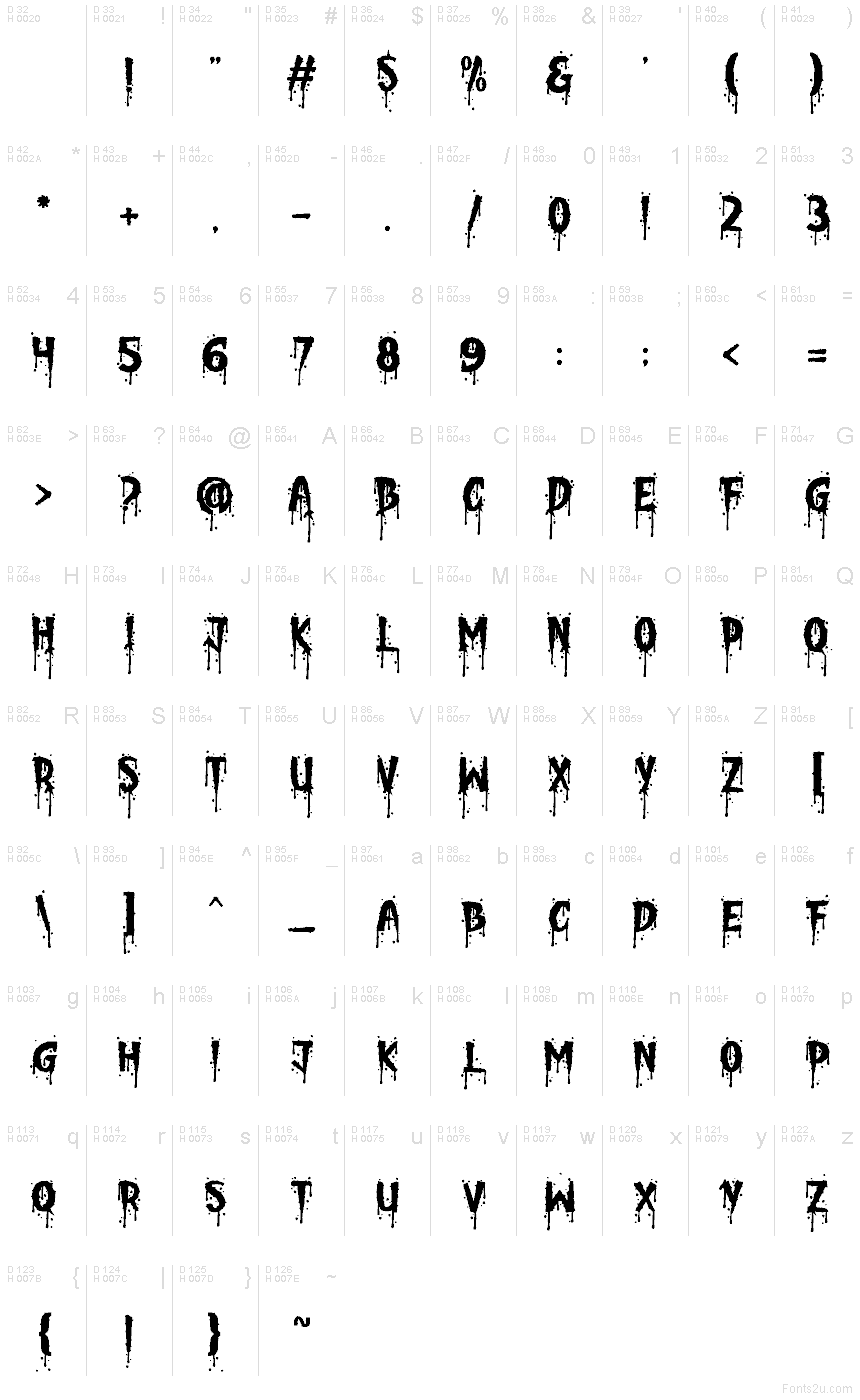
Pumpkin Stare Three
Pumpkin Stare Three font by PutraCetol Studio is a free Halloween display font that leans into the Pumpkin Stare family’s grungy charm. Thick, black letterforms look hand‑painted and wet, with ragged tops and long, inky drips that feel fresh from a carving knife. The spacing stays tight enough to read at a glance, while the irregular rhythm pumps up the scare factor without turning to mush.
Using Pumpkin Stare Three, headlines jump off the page for party posters, haunted house flyers, trick‑or‑treat bags, social posts, YouTube thumbnails, and event tickets. This free font shines on big, high‑contrast titles and short punchy copy. Pair with a clean, condensed sans for body text, and scale the display type large to let those drips do the talking.